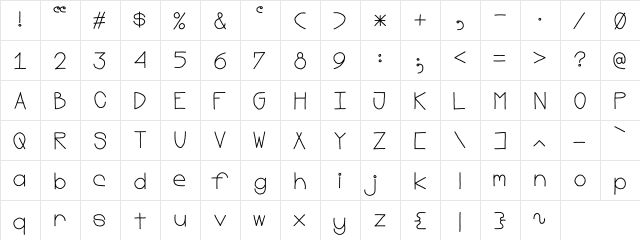
MostlyMono Medium
MostlyMono brings the precise, column-aligned rhythm of monospaced typography to designs that value technical clarity and systematic order.
Pro Tip: Use MostlyMono with slightly increased line-height for extended reading — fixed-width spacing can feel dense in longer passages without extra breathing room.